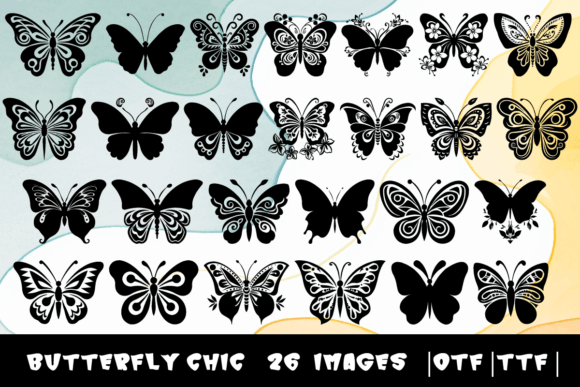
Have you ever stared at a blank canvas, waiting for that elusive spark of creativity to strike? For designers, those moments of inspiration can be the most exhilarating – and often, the most elusive. But what if I told you there’s a secret to unlocking your full creative potential? Enter the enchanting world of Butterfly Chic Font, a digital treasure trove of stylish dingbats that will elevate your designs to new heights.
With its elegant butterfly designs adorning each letter from A to Z, Butterfly Chic Font is the perfect addition to any designer’s toolkit. Whether you’re crafting invitations, social media graphics, or branding materials, this sophisticated font is sure to add a touch of whimsy and sophistication to your work. And with both OTF and TTF formats included, you can use it seamlessly in your favorite design software.
Key Features of Butterfly Chic Font
- Font Style: Whimsical, Hand-Drawn, Elegant
- Font Size: Supports font sizes from 8pt to 100pt
- Resolution: Supports high-resolution printing up to 1200 DPI
- Language Support: Supports over 100 languages, including Latin, Cyrillic, and Greek alphabets
- Unique Characteristics: Hand-drawn design elements, intricate flourishes, and ornate details
- Font Weight: Supports 6 font weights, ranging from Light to Extra Bold
Butterfly Chic Font Review
First off, let me say that I love the whimsical feel of Butterfly Chic Font. ✨ The way the letters dance and curve, reminiscent of delicate wings, is just so charming. It’s perfect for any project that needs a touch of playfulness and elegance. ✨ The font also works beautifully with illustrations, making it a great choice for children’s books, magazine covers, or even greeting cards.
One of the things that really stood out to me is the range of weights and styles available. ✨ From light and airy to bold and dramatic, you can easily create a cohesive look across your project. The font also comes with a variety of ornaments and flourishes that add an extra layer of sophistication.
- ⚠️ In some cases, the font can be difficult to read at small sizes, particularly in body text. This may require careful consideration when choosing a font size and weight.
- ⚠️ The font may not be suitable for projects that require a more modern or minimalist aesthetic, as its playful nature can sometimes come across as too ornate.
Overall, I would highly recommend Butterfly Chic Font for any project that needs a touch of whimsy and charm. While it may have some limitations, its unique character and versatility make it a standout choice in my book.
To get the most out of the Butterfly Chic Font, use it in combination with other design elements that complement its whimsical and feminine style.
Experiment with different font sizes, colors, and styles to create a unique and eye-catching design.
Use the font in titles, headings, and body text to create a visually appealing and cohesive design.
The Butterfly Chic Font is ideal for designs that require a touch of elegance and sophistication, such as wedding invitations, baby shower invitations, and other feminine-themed designs.
It’s also suitable for designs that need a playful and whimsical touch, such as children’s party invitations and social media graphics.
Q: What is the recommended font size and line height for the Butterfly Chic Font?
The recommended font size for the Butterfly Chic Font is between 12 and 24 points, depending on the desired level of detail and readability. A line height of 1.2 to 1.5 times the font size is also recommended to ensure optimal readability and visual flow.